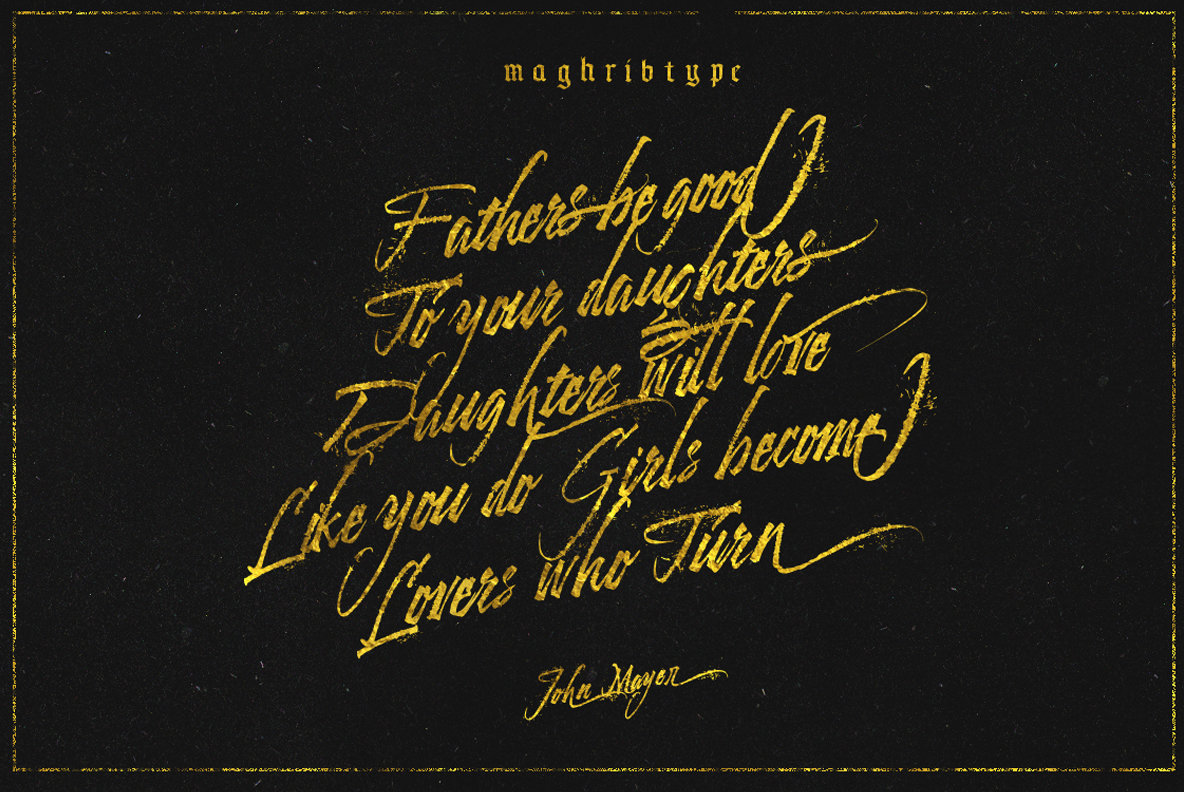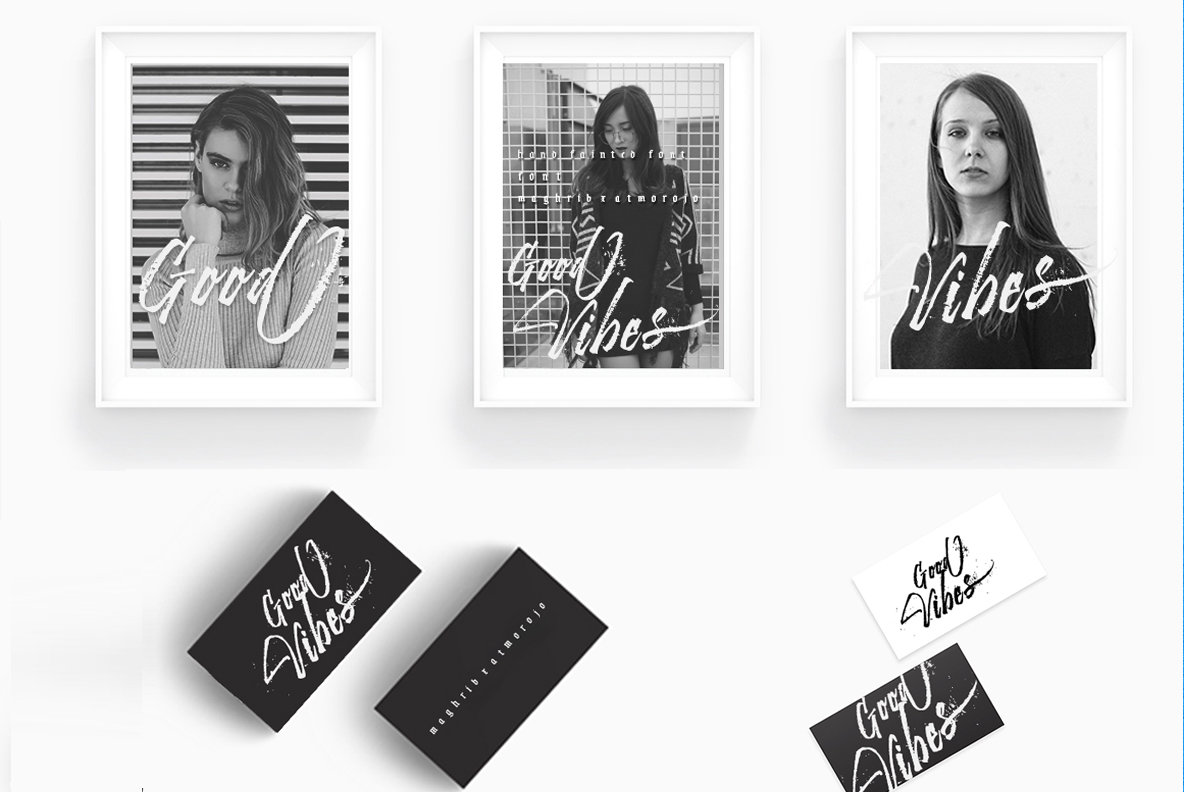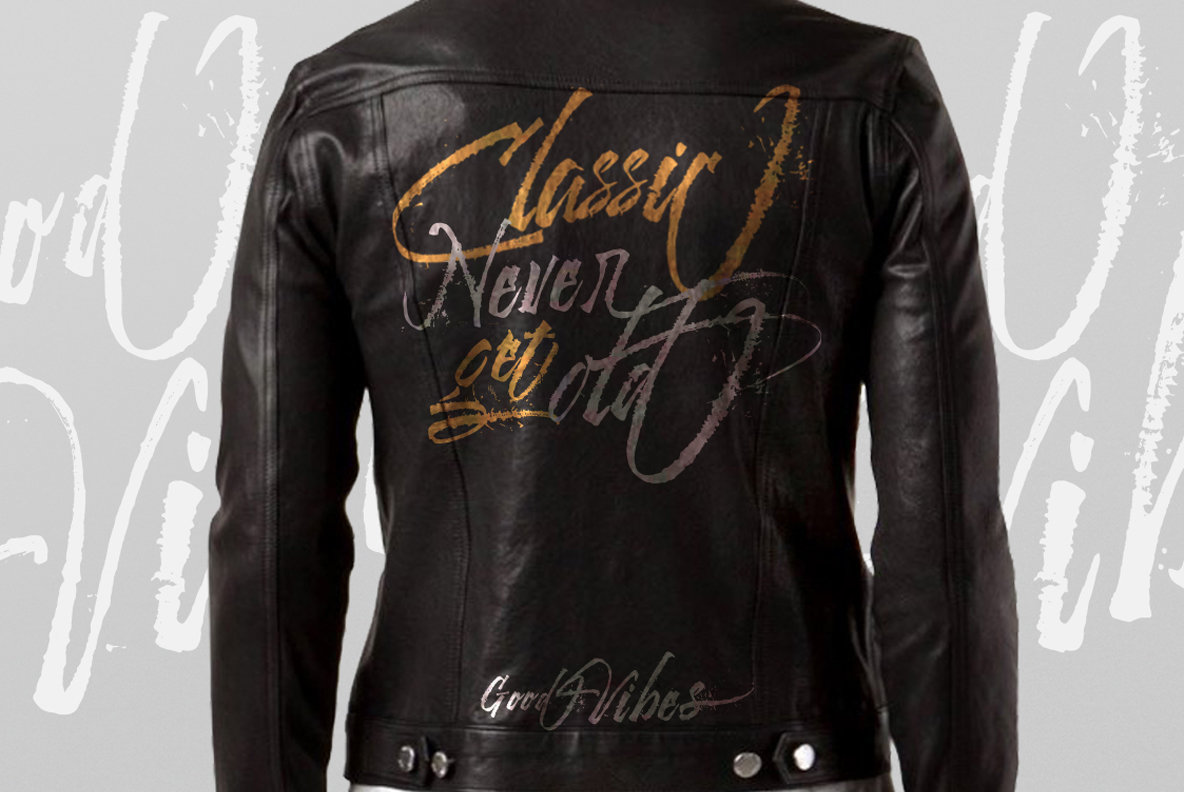
Good Vibes Font
Good Vibes
Good Vibes Blackletter
Good Vibes Alt Uppercase
Good Vibes type is hand painted typeface designed to help you create the look of stunning custom hand-lettering.